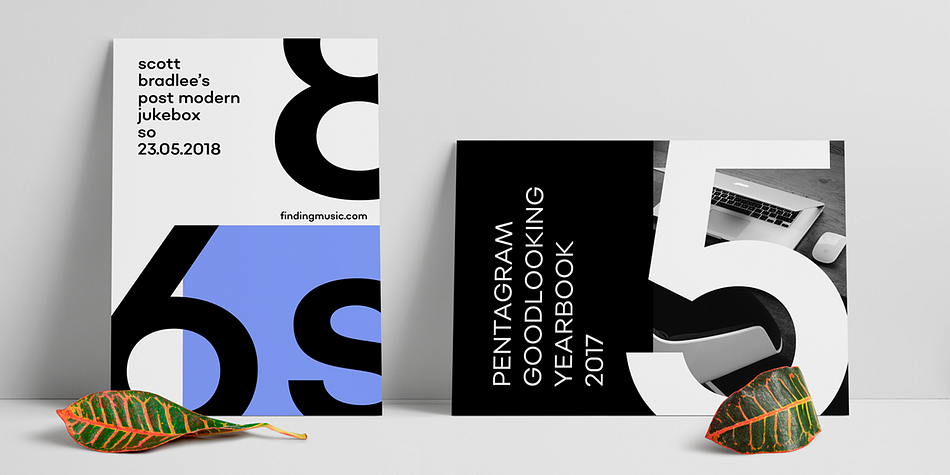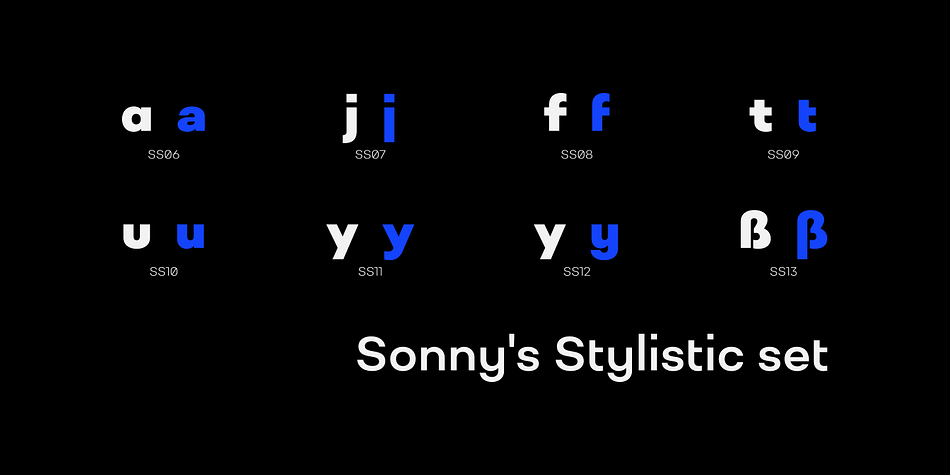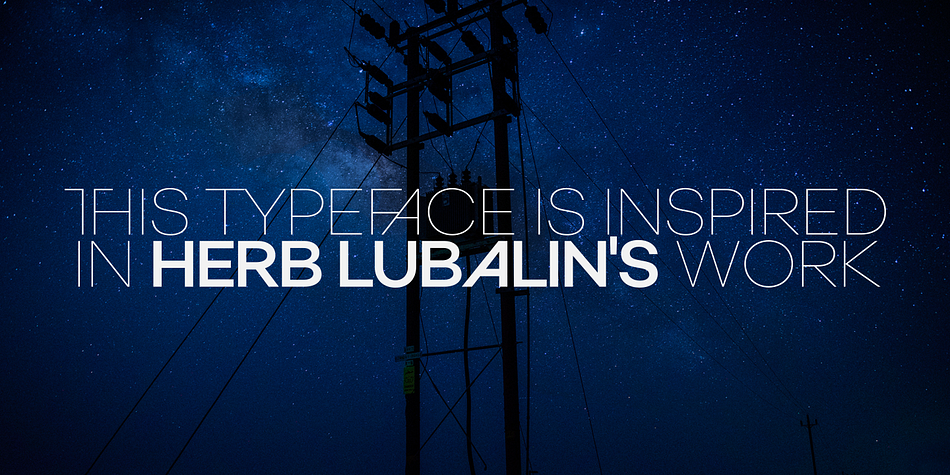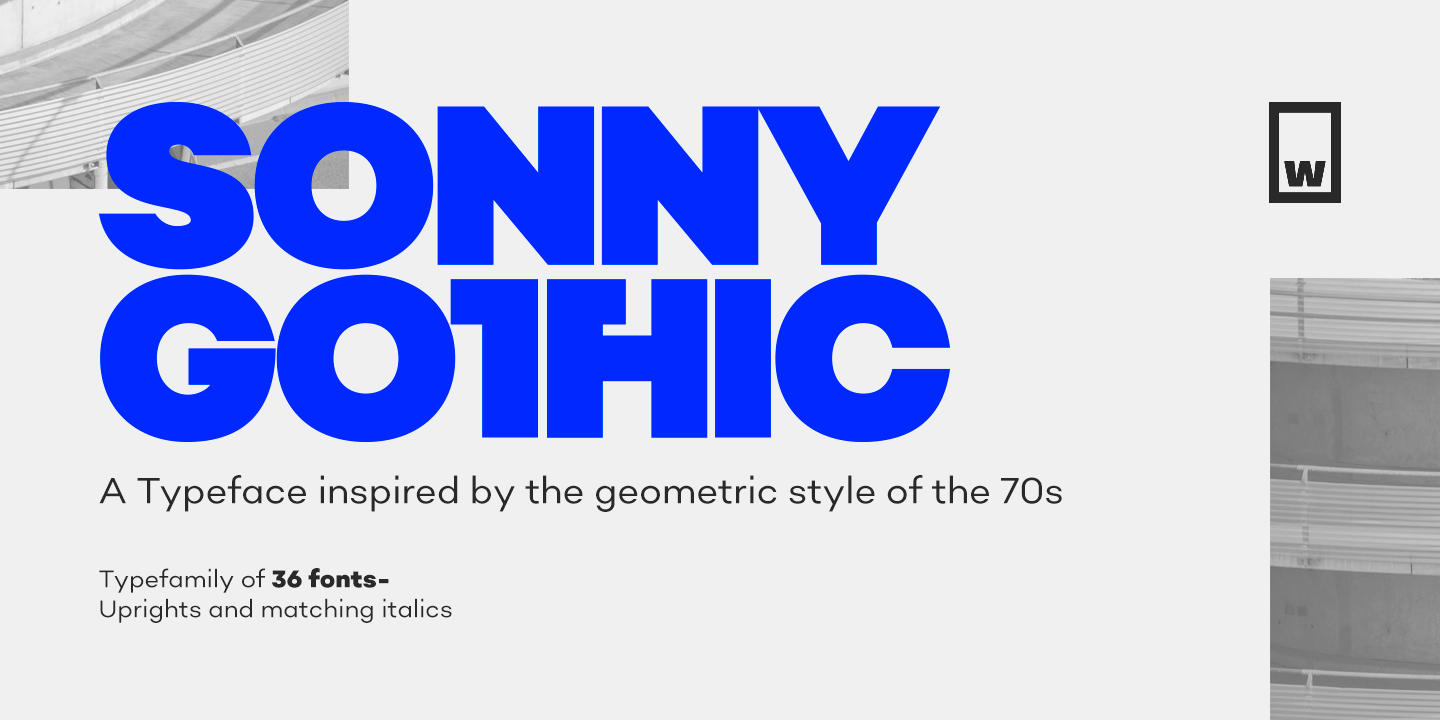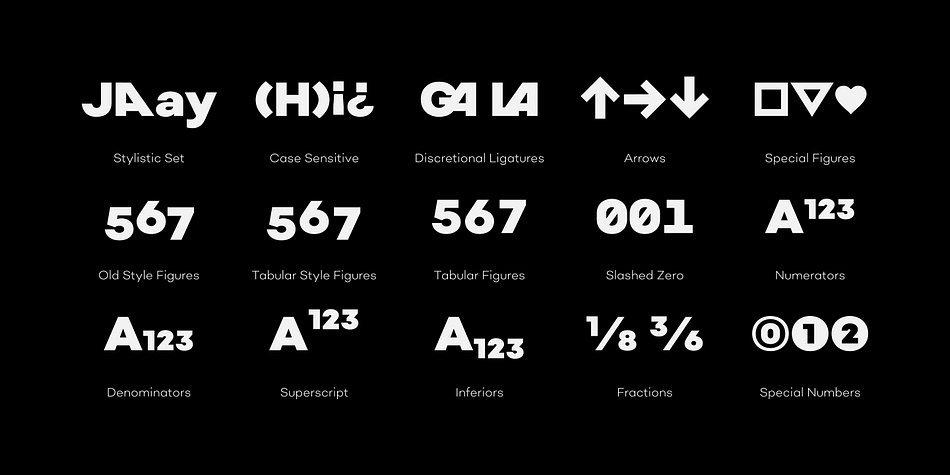
Sonny Gothic
Designed by Salvador Rodríguez, Sonny Gothic is a sans serif font family. This typeface has thirty-six styles and was published by W Type Foundry.
Sonny Gothic is our most rational-geometric typefamily until so far. It’s inspired by the geometric style of the 70s, specifically by Herb Lubalin’s work.
Since we were students, we have been gazing Lubalin’s logos, typefaces and magazines as inspiration that still lives in our subconscious. At first, we made a pure geometrical typeface with modern caps proportion, then we combine those proportions with the 70s traditional caps ligatures. It was at that point that we knew Sonny Gothic was ready to arise.
Even though Chile is not the origin of a modern visual culture, for us geometric typefaces and Lubalin’s work are one of the most attractive aesthetics of the creative realm, and therefore, this is our homage.
Designed with powerful opentype features, each weight includes alternate characters, ligatures, fractions, special numbers, arrows, extended language support and many more… Perfectly suited for the several areas of graphic design.